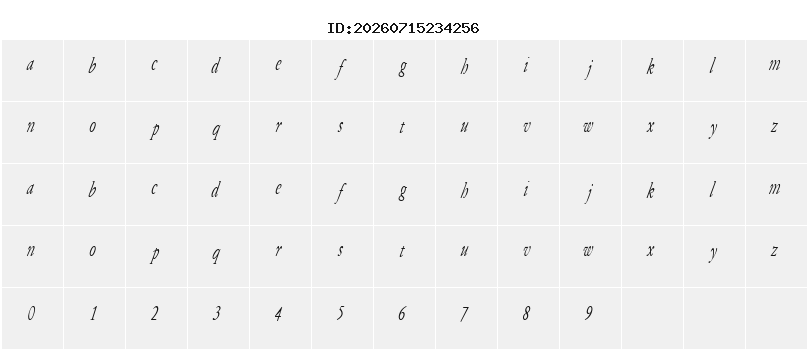
• Font Name: Army of Darkness
• Full Font Name: Army of Darkness Italic
About Army of Darkness.ttf
Army of Darkness.ttf is a modern, elegant sans-serif font designed for ultimate readability and visual harmony. Perfect for branding, headlines, web design, and print materials.